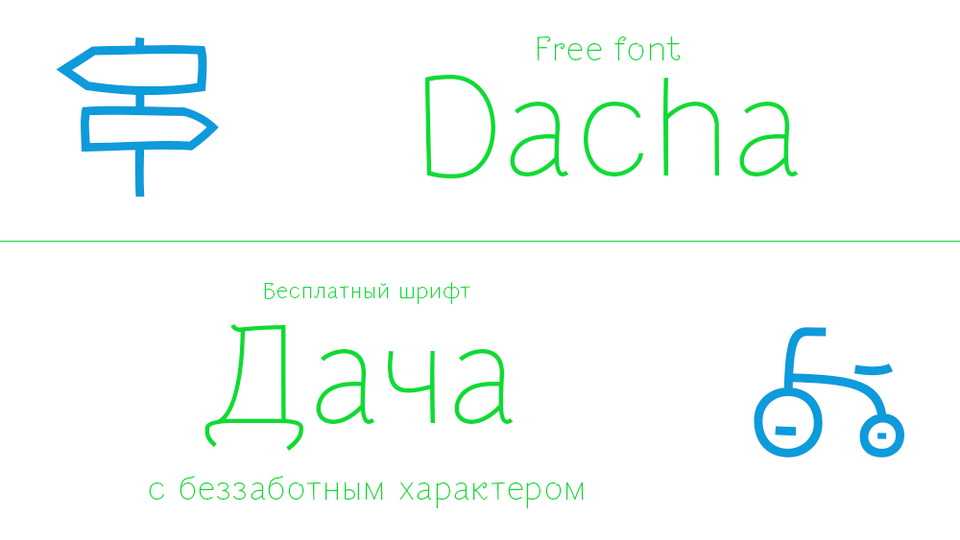
Download Dacha font, a decorative typeface with childish, fun, playful character. Dacha font is focused on the production of packaging of eco-goods, promotional products and the design of children’s publications.
Designer: Denis Serikov